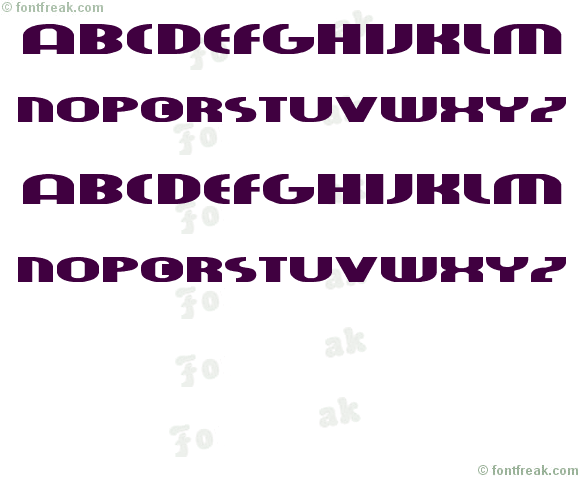
About Fat Boy
Discover the Fat Boy font, a striking display typeface designed by Niels Bonnevie in 2001. As a freeware font, it allows for unlimited creative possibilities without the burden of licensing fees. Fat Boy falls under the category of decorative fonts, characterized by its bold and chunky letterforms that exude a playful yet impactful presence. The font features a consistent stroke weight that enhances its legibility while maintaining a fun and whimsical appearance. The rounded edges and generous spacing between the letters contribute to its approachable aesthetic, making it ideal for capturing attention in various applications.
Fat Boy is perfect for a wide range of design projects. It shines in scenarios like eye-catching movie posters, where its robust style can draw in audiences. Restaurant menus can benefit from its playful tone, adding character to the dining experience. Additionally, this font can elevate event branding, making it an excellent choice for birthday invitations or casual gatherings. Small business owners looking to create memorable logos or marketing materials will find Fat Boy to be an effective way to stand out in competitive markets. Graphic designers and content creators will appreciate its versatility in both print and digital formats.
What sets the Fat Boy font apart is its unique blend of boldness and whimsy, making it a go-to choice for those aiming to make a statement. The playful nature of the font brings an element of joy to any design, ensuring that it captures the viewer's attention while conveying a sense of fun. If you're searching for a distinctive typeface that stands out, look no further. With the Fat Boy font free download available, you can incorporate this eye-catching typeface into your next project and unleash your creativity.